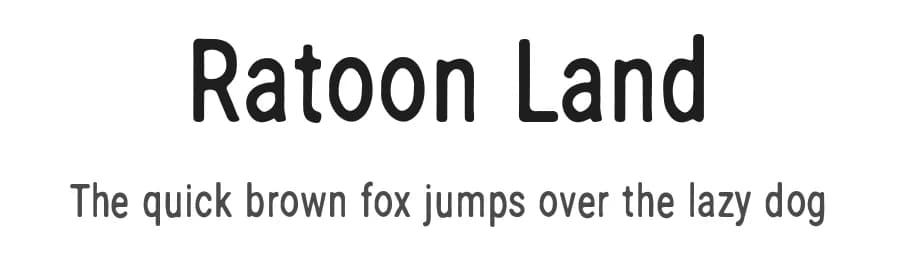
About Ratoon Land Font
Ratoon Land is a sans-serif font designed by Raafi Hilmi. It includes 96 glyphs, a regular weight, TTF (TrueType) format, and 104 languages. Ratoon Land is free to download; check the license details on this page before commercial use. Sans-serif fonts like Ratoon Land work best for clean body text, user interfaces, branding, and modern layouts.
Ratoon Land Font is a versatile sans-serif font that works for both headings and body text. Pair it with a contrasting serif or slab serif font to add visual interest and a clear distinction between titles and body copy.
Ratoon Land Font